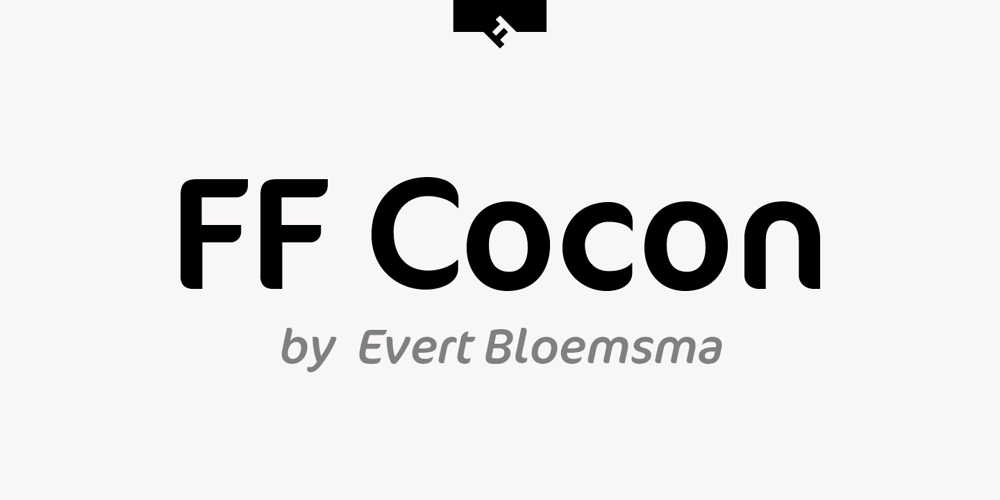
FF Cocon Font Family was designed by Evert Bloemsma and published by FontFont. FF Cocon contains 18 styles and family package options. FF Cocon’s designer, Evert Bloemsma (1958—2005) described it as a “serious typeface”. Despite first impressions, the description holds up well. Since its 2001 release, FF Cocon has been used in an astoundingly wide variety of design applications. At large sizes, FF Cocon works as a display face, with beautiful detailing. And at small sizes, it remains surprisingly readable. The lowercase letters a, b, d, g, h, m, n, p, q, r and u, were drawn without spurs, as Bloemsma made an attempt to erase every trace of handwriting; even “normal,” neutral sans serif typefaces still retain elements in their letterforms like this. Bloemsma wanted none of it. Although a difficult starting point for a typeface, this proved successful. Bloemsma’s design is a family of rounded yet rather asymmetrical forms with details reminiscent of brush-strokes, but that were not made with a brush in hand. In spite of its claim to seriousness, FF Cocon is a family of seductive, voluptuous styles. The original FF Cocon had two widths—normal and condensed. Later, a more compact Extra Condensed version was introduced, as well as italics.